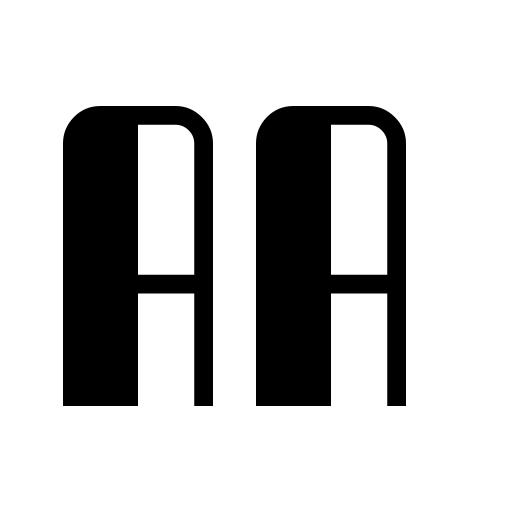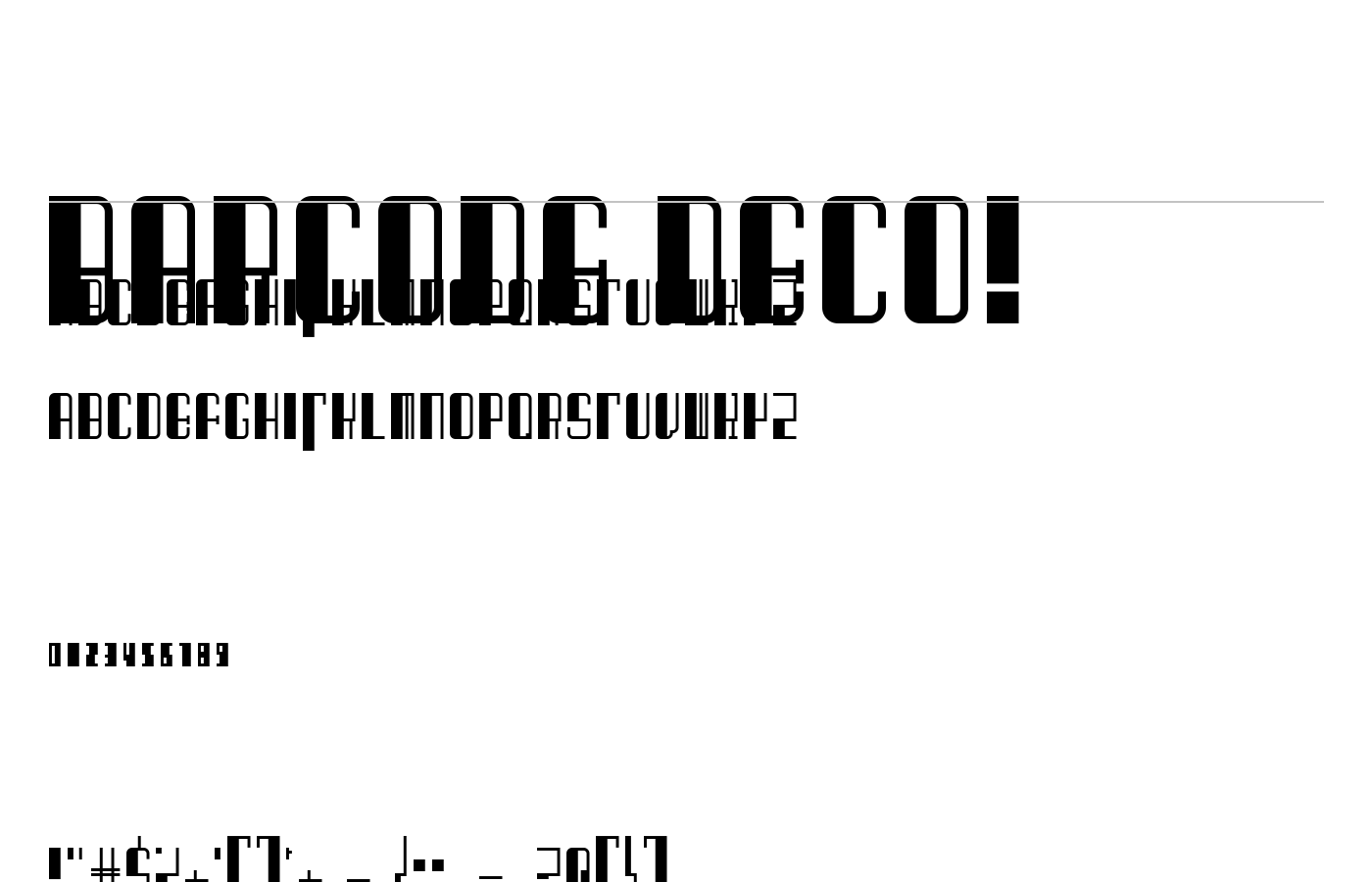
Barcode Deco! is a modern, condensed sans serif font characterized by its tall, narrow letterforms and unique barcode-inspired detailing. Its high contrast and geometric structure give it a bold, striking appearance suited for eye-catching headlines, logos, and packaging where a contemporary, tech-savvy or futuristic aesthetic is desired. This distinctive typeface works best in large sizes to highlight its decorative, unconventional style.
| Font family | Barcode Deco! Font |
| Designer | H.G. Blakeman |